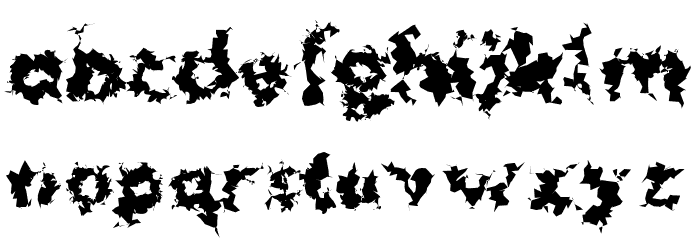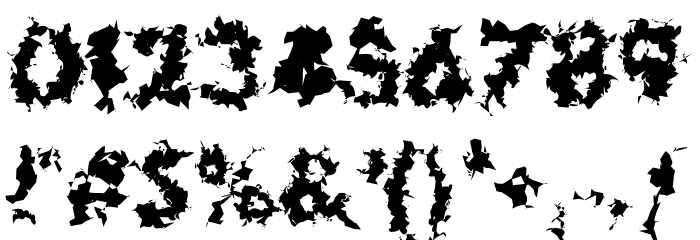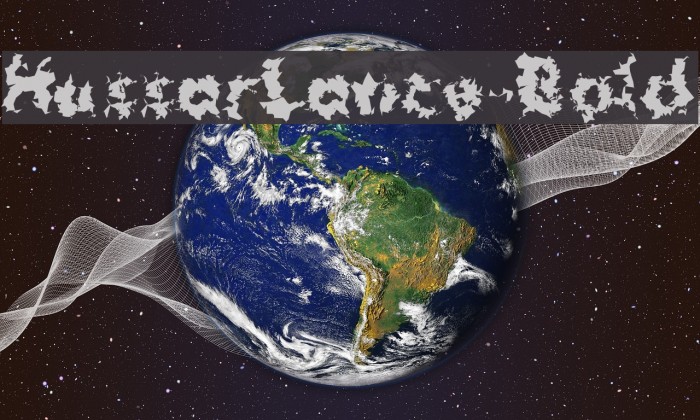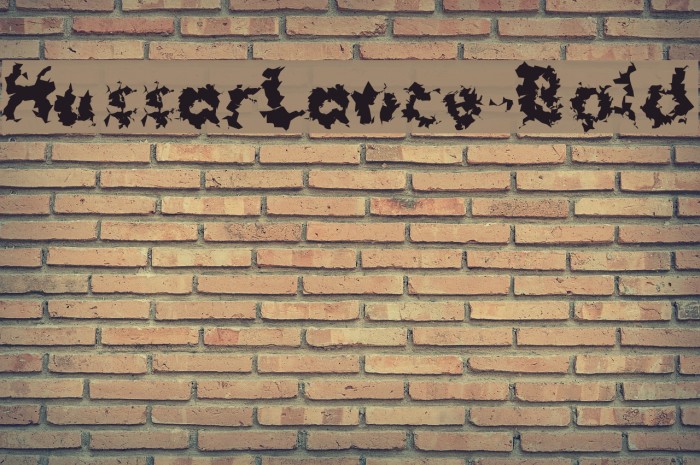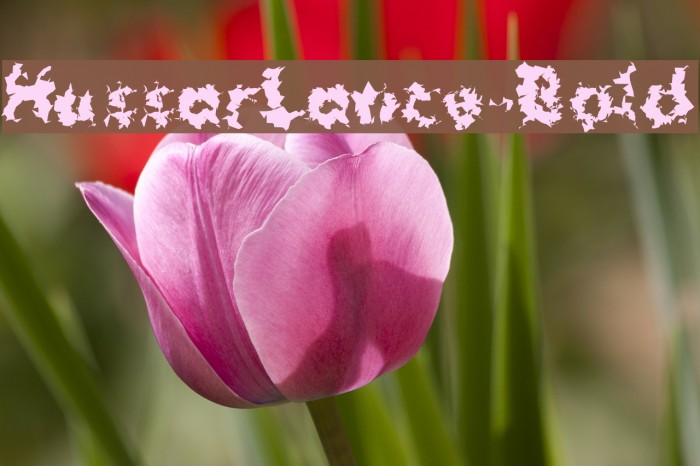
HussarLance-Bold Font
This font features a highly decorative and chaotic style, reminiscent of torn paper or jagged edges. Each character is uniquely crafted with irregular shapes and rough textures, giving it a dynamic and edgy appearance. The boldness of the font is evident, with thick strokes and a strong presence on the page. The overall design is both artistic and unconventional, making it stand out in any context. Its intricate details and abstract forms suggest a sense of movement and energy, perfect for creative and avant-garde projects.
A bold, chaotic, and decorative font with jagged, torn-like edges.
- Proposed Projects: Ideal for album covers, poster designs, Halloween-themed events, or any project requiring a bold, artistic statement.